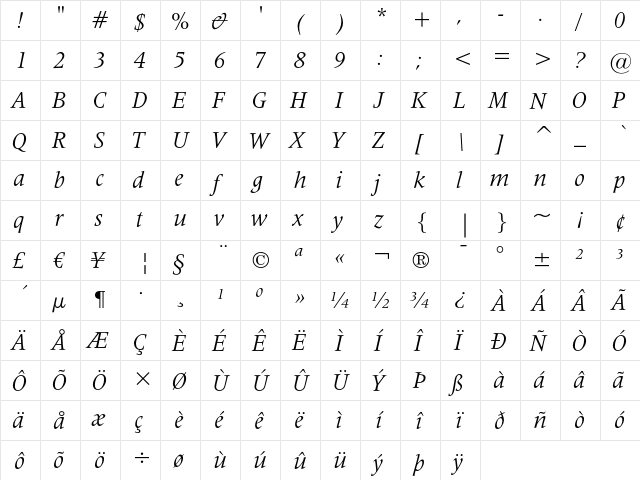
Latin 725 Italic
Design Context for Latin 725 Typeface
Latin 725 offers clean, dependable letterforms without strong stylistic allegiance, making it a practical choice for designers who need flexibility. The slanted form adds forward momentum and visual energy.